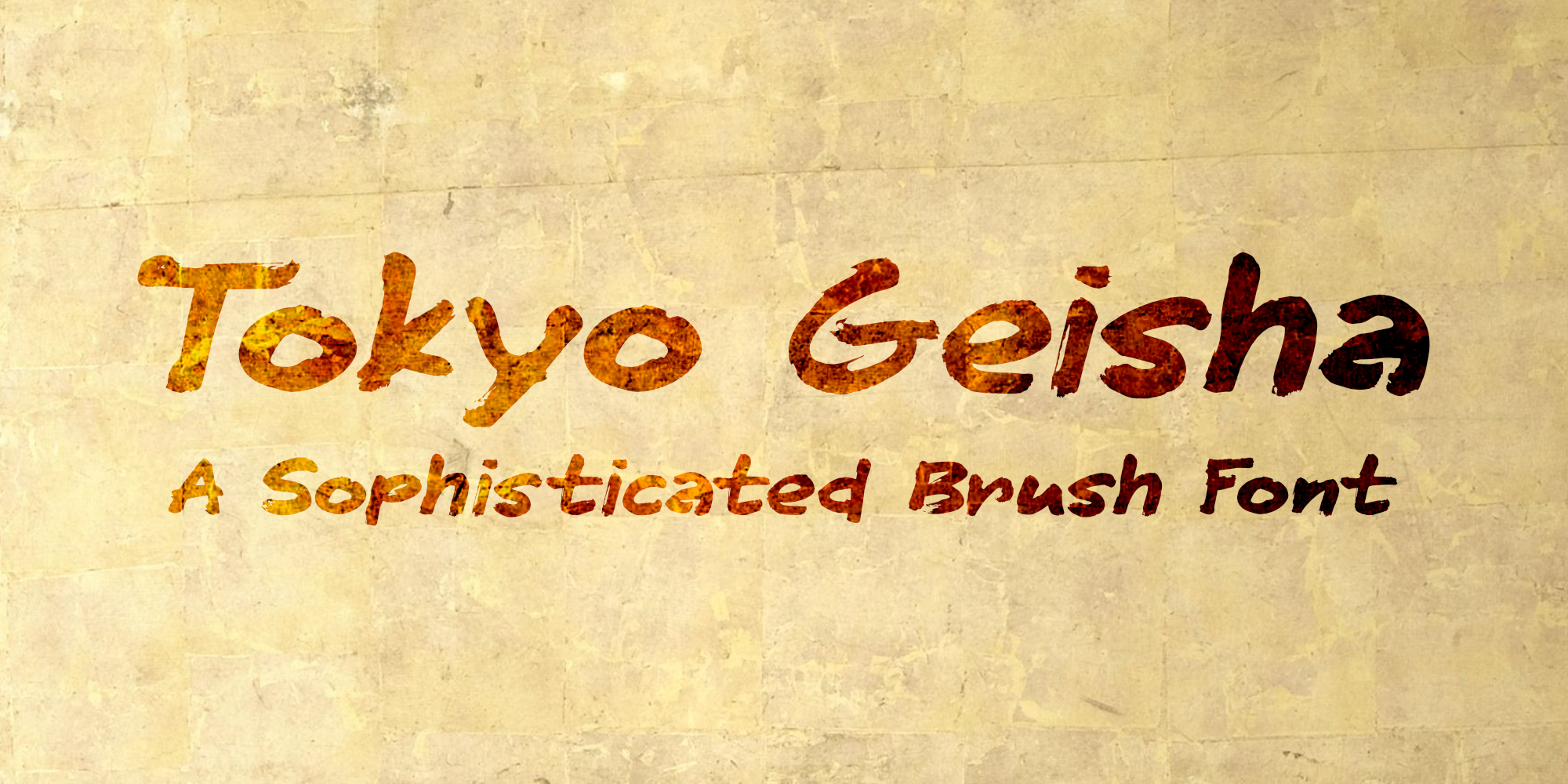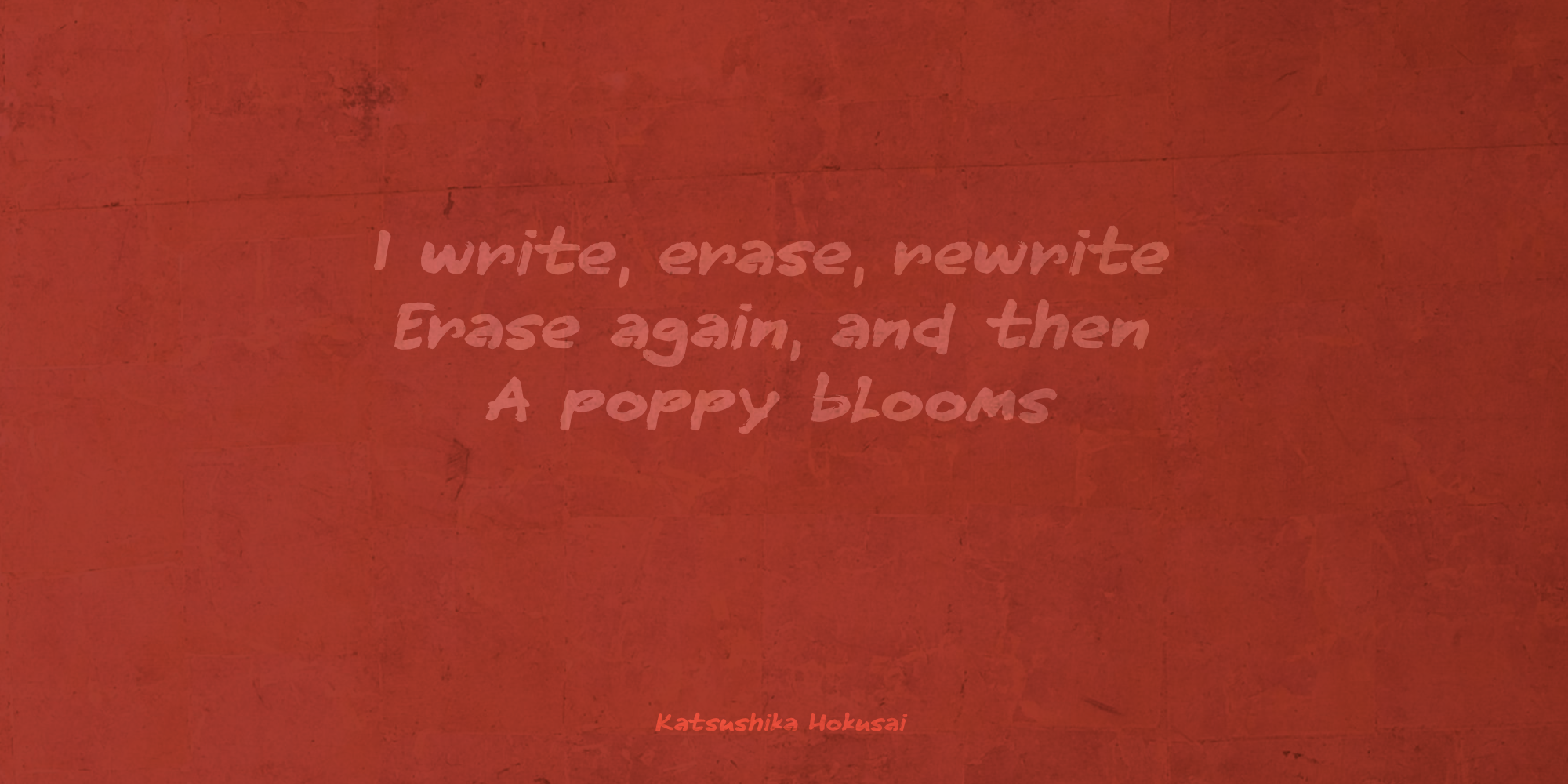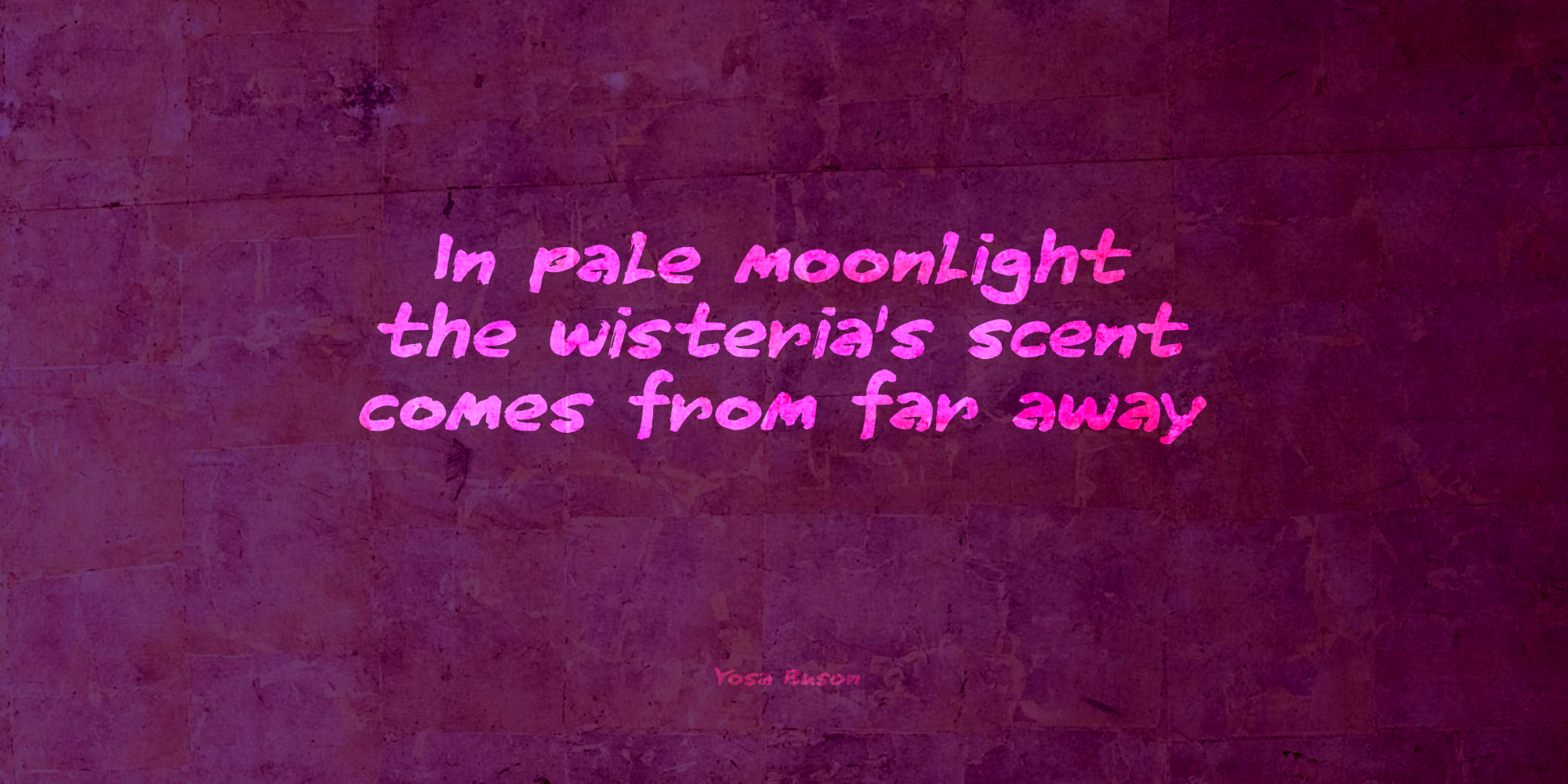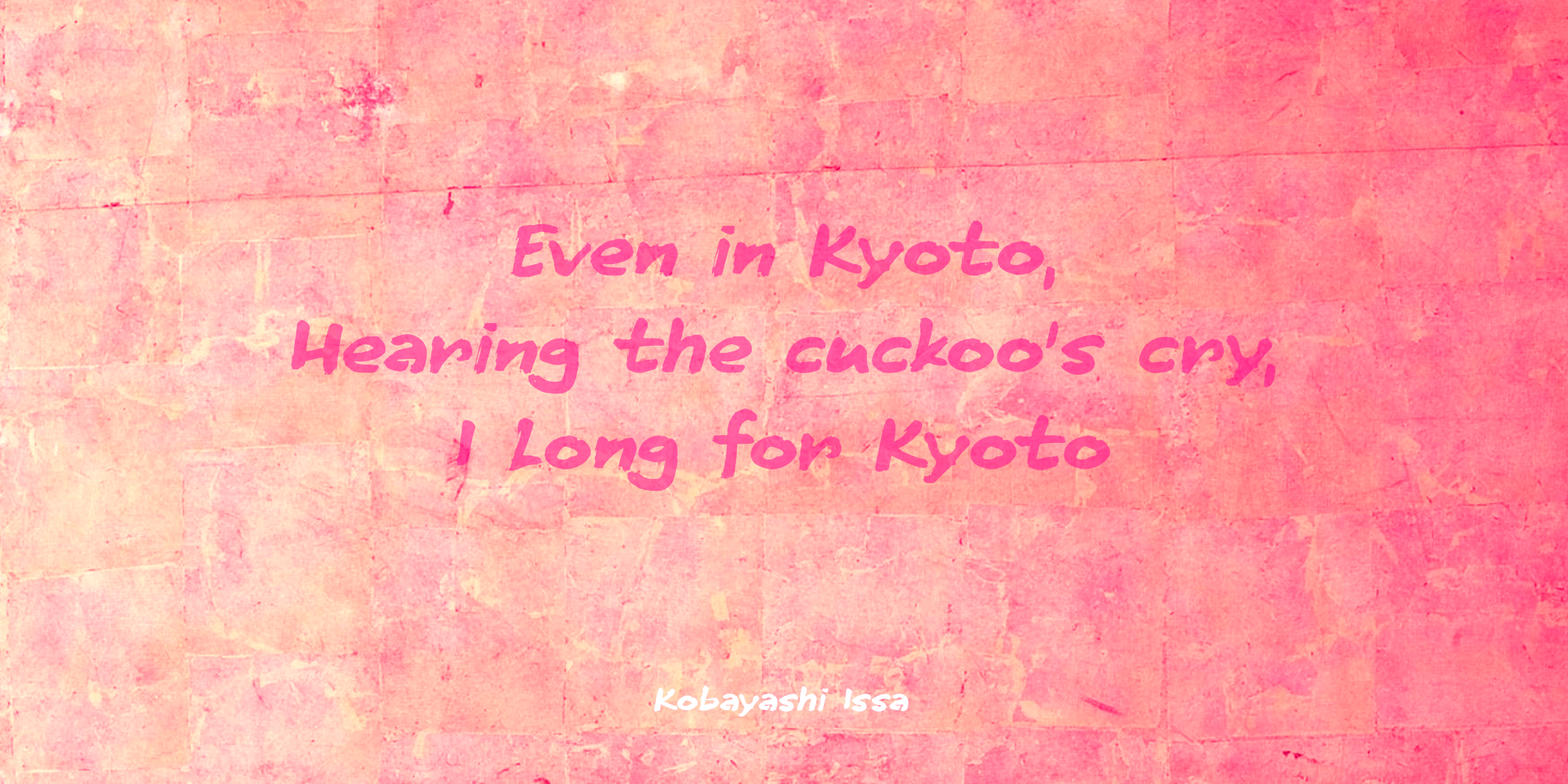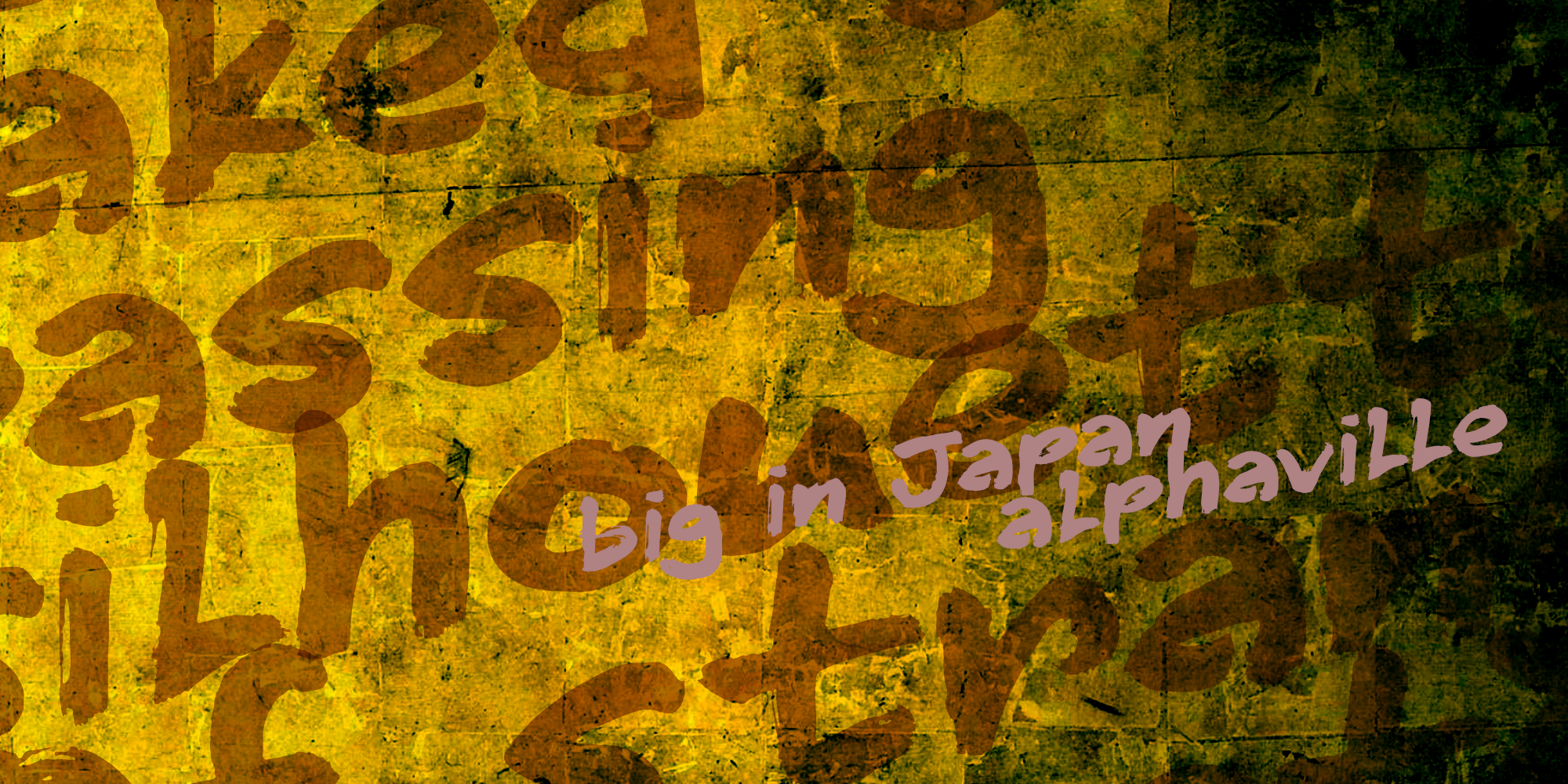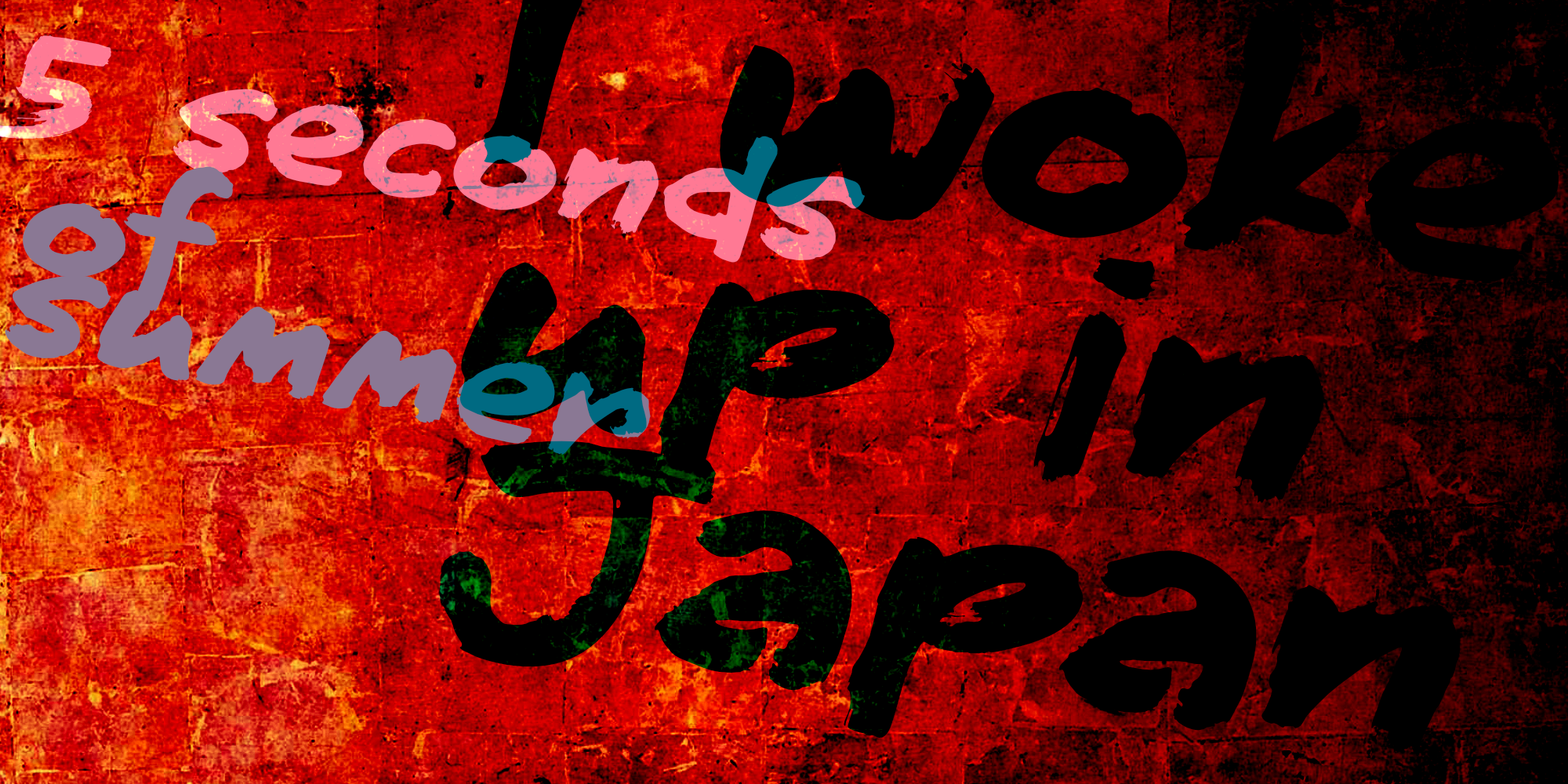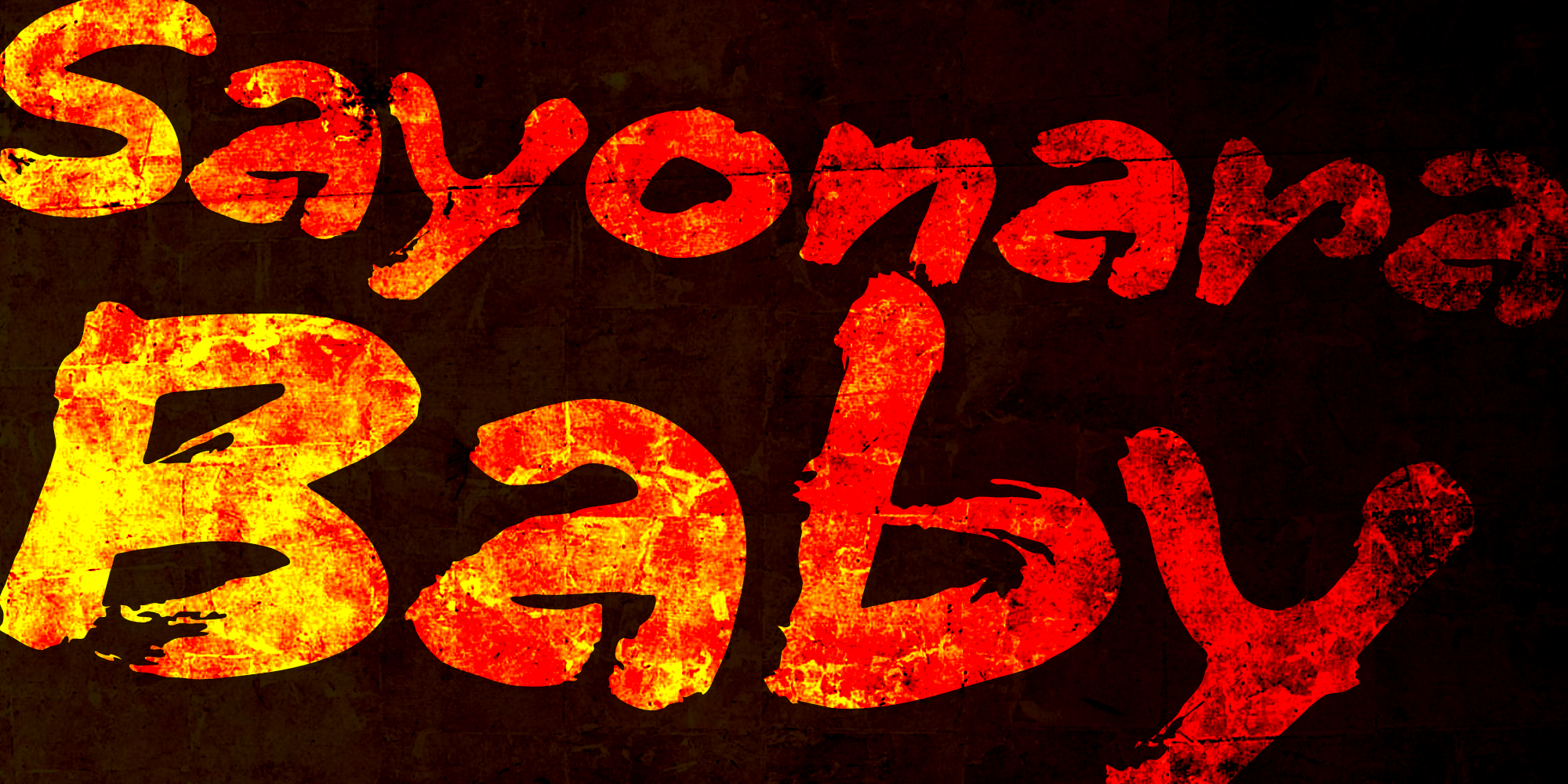
Tokyo Geisha (2 fonts)
Tokyo Geisha is a handmade brush font. I made it with Chinese ink and one of the Chinese brushes my late father in law gave me.
Tokyo Geisha is a font with speed and a certain flamboyance. It comes with extensive language support and a cool .notdef glyph. I am sure you will put it to good use! Arigato Kozaimasu!